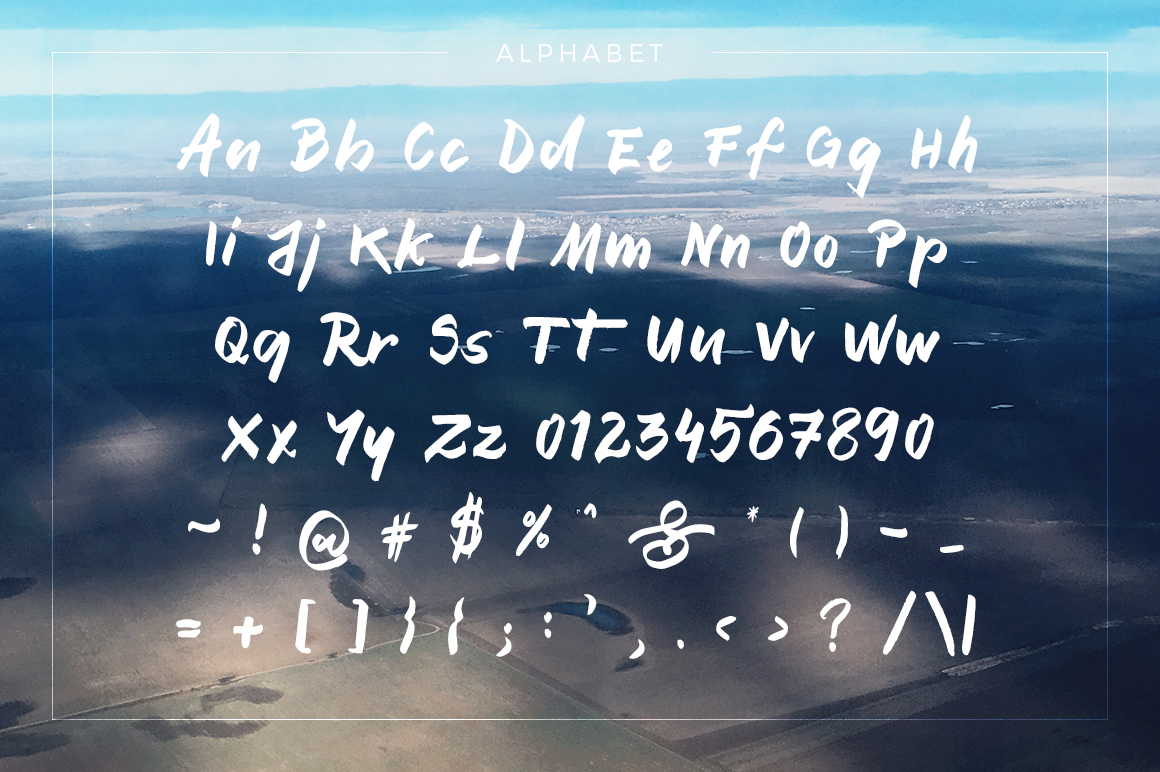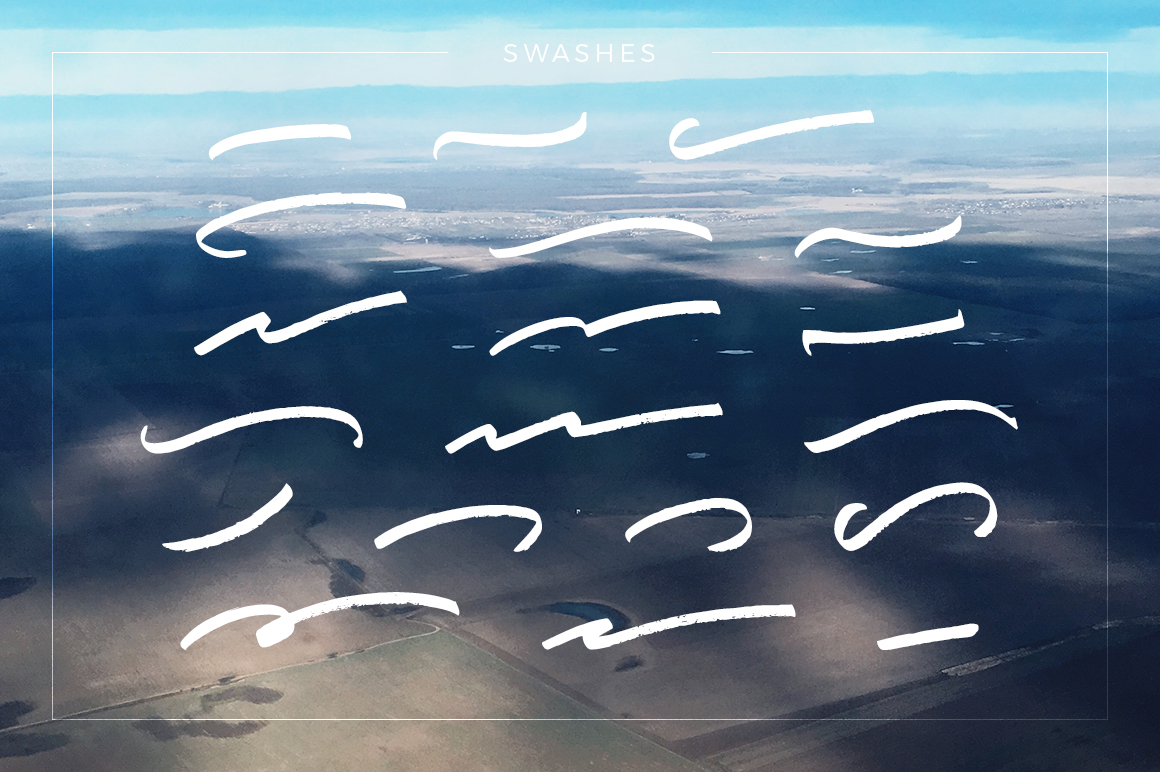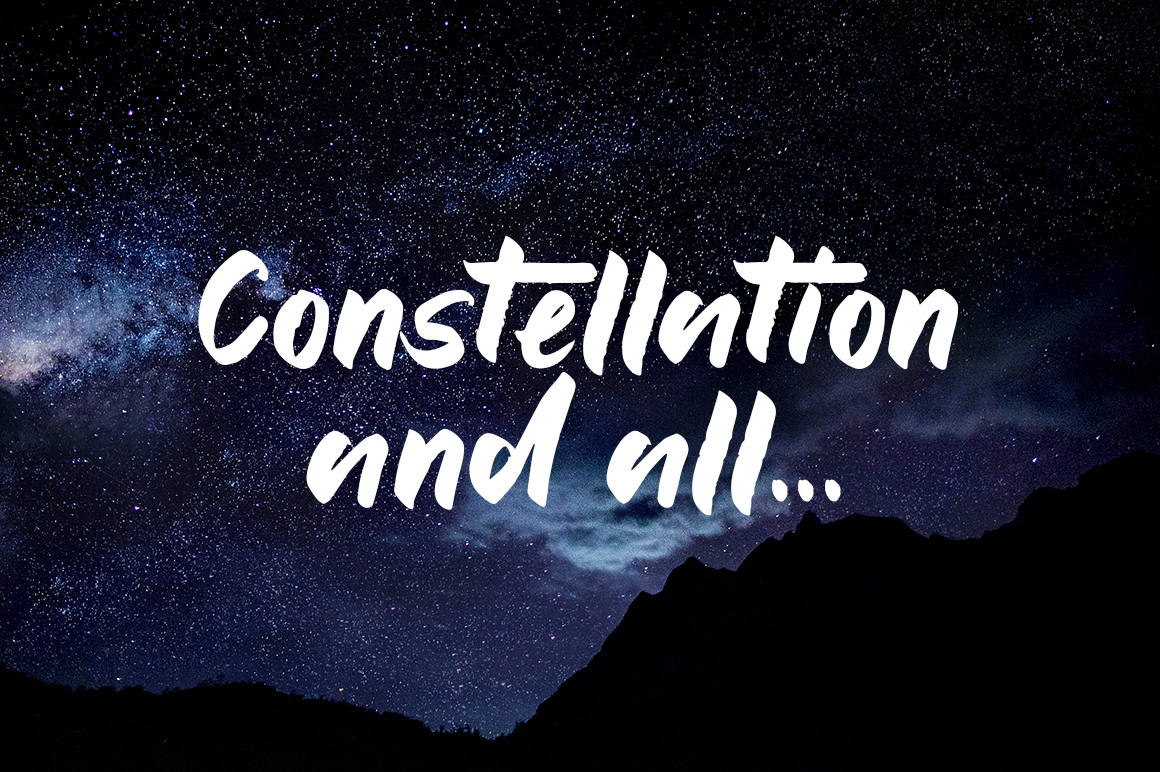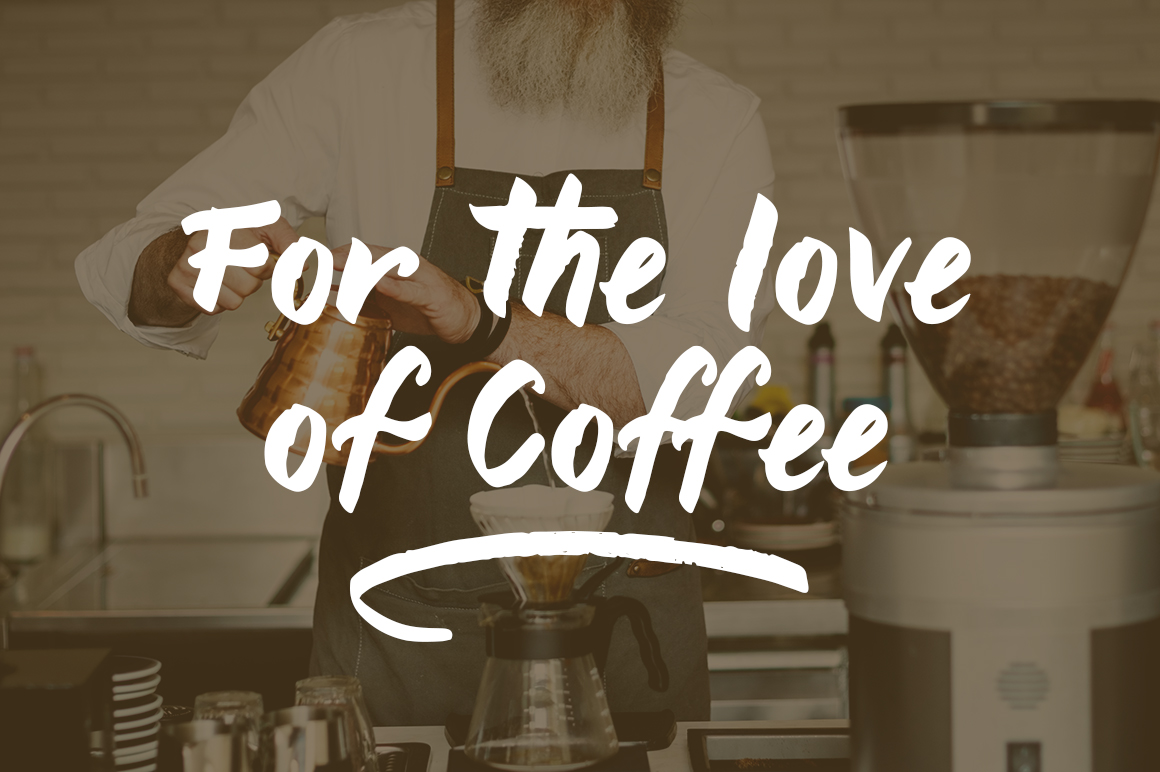
Motanly Font
About Motanly Font
Motanly is a handmade font, created with a Copic M Brush on A4 paper sheets. It comes with basic alphabet letters, numbers, punctuation marks and a separate font with 20 different and unique swashes.
Motanly works great with logo design and branding, quotes, headlines and more.